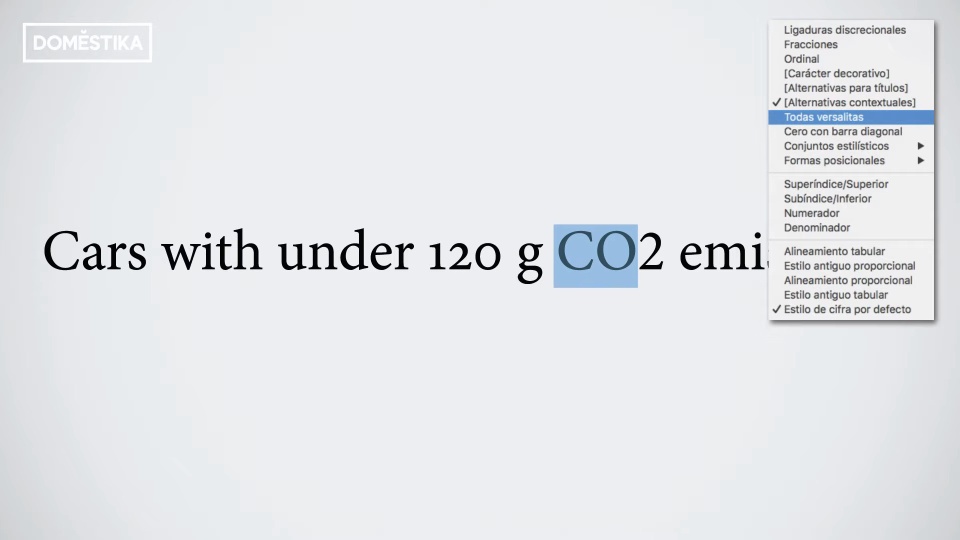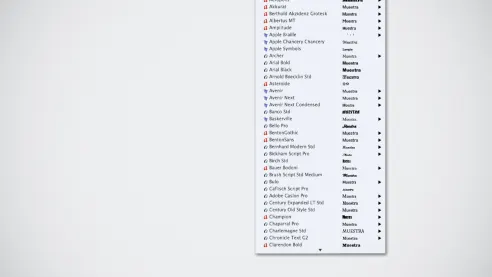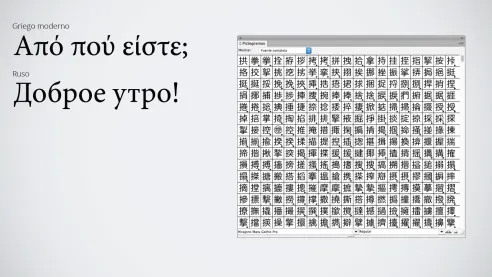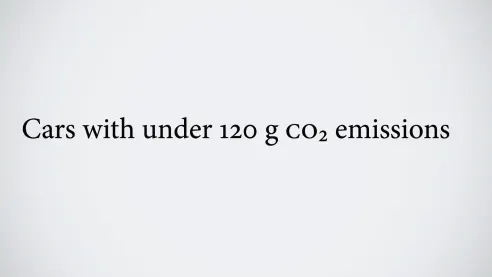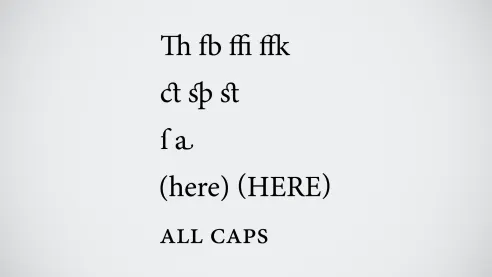
OpenType is a unique and scalable typographic format, capable of offering a complete range of typefaces, and is also able to adapt to the main operating systems (Windows, Mac and Unix). Enric Jardí, a graphic designer specializing in editorial and typographic design, reveals all his secrets when it comes to getting the most out of OpenType fonts
1. Compatibility between operating systems
Before OpenType fonts appeared, when we moved a project from one operating system to another, there were certain fonts that, being available in both systems, we could use again without any problem. It was the same font, yes, but not exactly the same file, and that could cause problems. This changed with OpenType fonts.
Different OpenType fonts
These fonts can be used on a Mac operating system as well as on Windows or Unix, which allows us to share the font when we work, for example, in Illustrator or InDesign and want to change operating systems, preserving both the fonts used and the files.
2. Access to up to 64,000 characters
Greek, Russian and Chinese scripts that can be accessed with OpenType
OpenType fonts are prepared to accommodate up to 64,000 characters; this does not necessarily mean that each of them contains that number of characters, but that they are prepared to contain them if necessary.
This allows access to scripts similar to ours, such as Greek or Cyrillic, and others, such as Chinese, which require a much larger number of characters. This feature of OpenType makes it possible to display websites written in Chinese or Japanese, for example, without any problems.
3. Accessing stylistic groups
In some OpenType fonts we can activate parts of the script to make specific characters behave the way we want them to. For example, we can transform a certain group of characters to small caps, giving them a particular style:
Applying small caps
And it also allows numbers to work in a special way, for example, by converting them to superscripts:
The 2 becomes a subscript
This can be configured in the character style or paragraph style options, so that we don't have to change the characters every time we need to.
4. Access special characters
Different stylistic groups: simple and decorative ligatures, adapted parentheses and small caps.
OpenType also allows access to other special characters, such as ligatures. With them, we achieve effects, sometimes more ornamental and sometimes simply practical, in the joints between different letters.
Although most fonts have some ligatures, it is the "pro" fonts (such as 'Adobe Garamond Pro', for example) that have options to generate what we call discretionary ligatures: groups of letters linked together with a more ornamental character; or letter shapes that, when positioned at the end of a word, have a different shape; or parentheses that adapt to uppercase or lowercase letters.